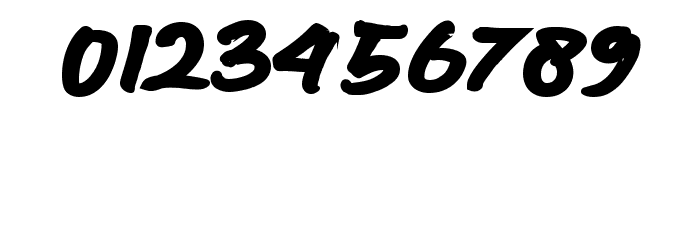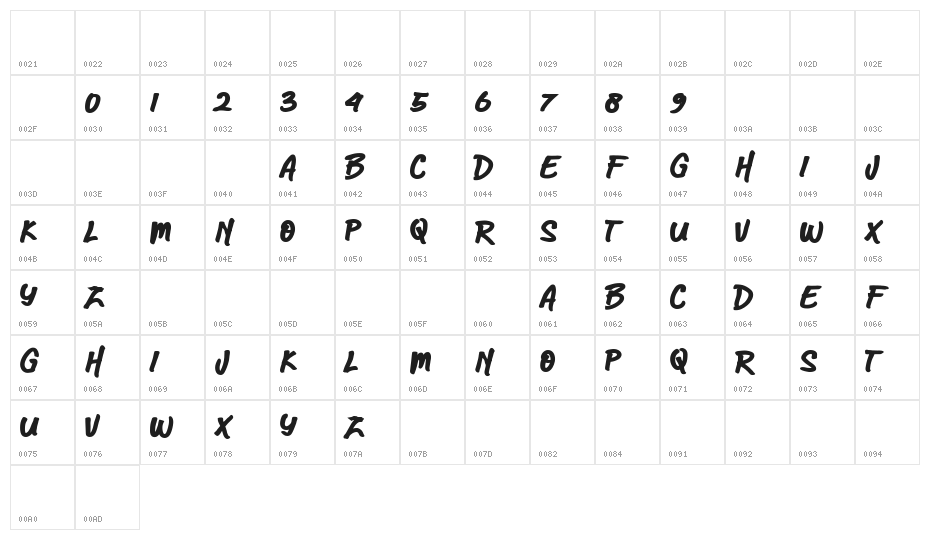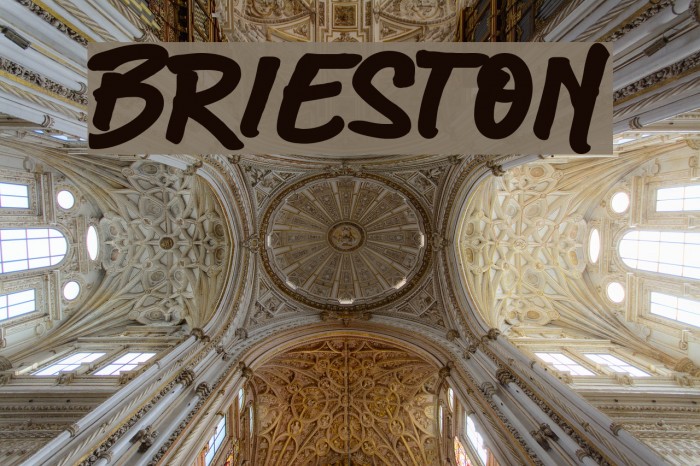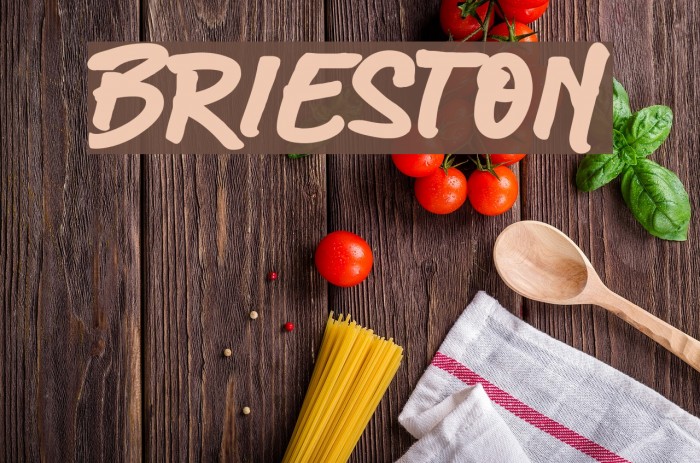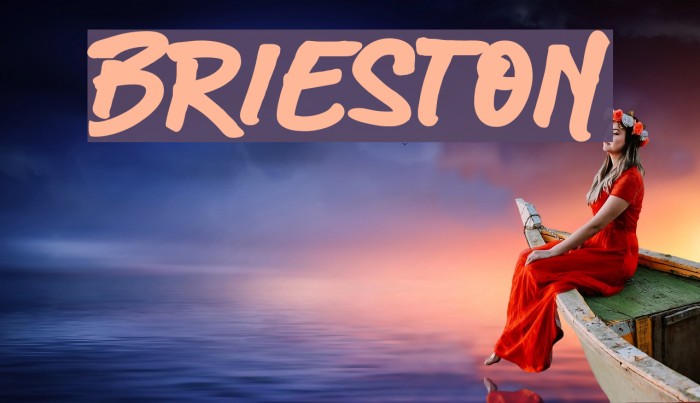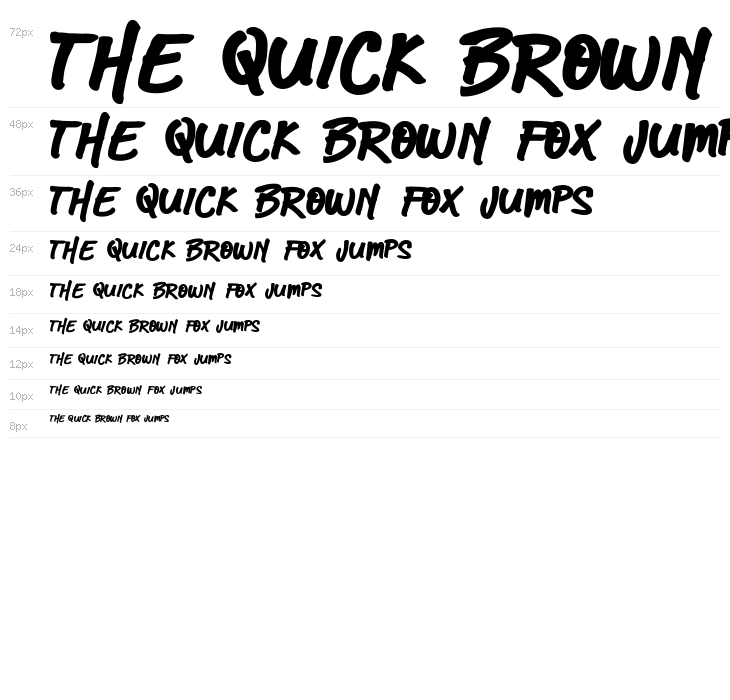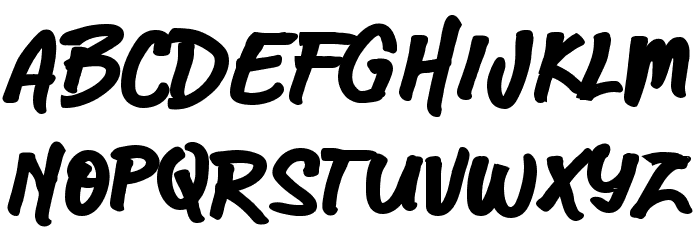
Brieston Font
Brieston Description
This font features a bold and dynamic script style with a handwritten appearance. The letters are slightly slanted, giving a sense of motion and fluidity. The strokes are thick and consistent, providing a strong visual impact. The characters are closely spaced, enhancing the cohesive look of the text. The overall design is modern and energetic, making it suitable for projects that require a lively and informal touch. The numbers and special characters maintain the same bold and expressive style, ensuring uniformity across all elements.
| Proposed Projects | Ideal for branding, posters, social media graphics, and any design that needs a lively and informal touch. |